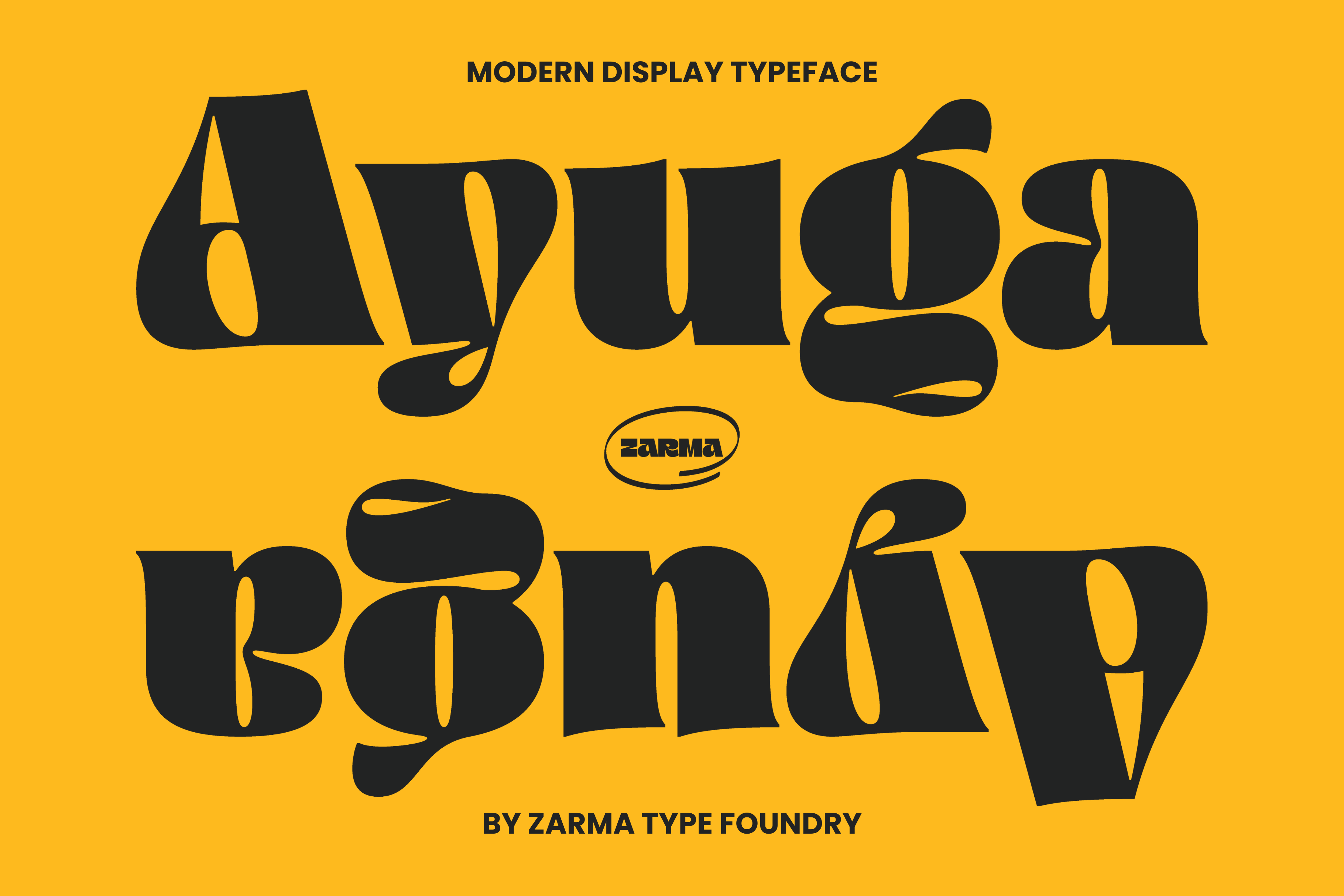
Ayuga - Psychedelic Serif Font Font
About Ayuga - Psychedelic Serif Font
Psychedelic Font Ayuga, a captivating display typeface that perfectly blends retro and psychedelic aesthetics. Ayuga stands out with its bold and thick letterforms, making your design projects truly eye-catching. Ideal for modern branding, unique logo designs, hipster-themed visuals, and captivating posters, Ayuga is the go-to choice for those who crave a touch of vintage and uniqueness in their typography. Upgrade your design game and let Ayuga’s bold and groovy retro style speak for your creative vision.
Ayuga has an extensive range of alternative characters and comprehensive coverage of Latin Extended-A for multilingual support. This font boasts a total glyph count of 381. Download the psychedelic font Ayuga now! Let your designs come to life with their unique character and versatility.